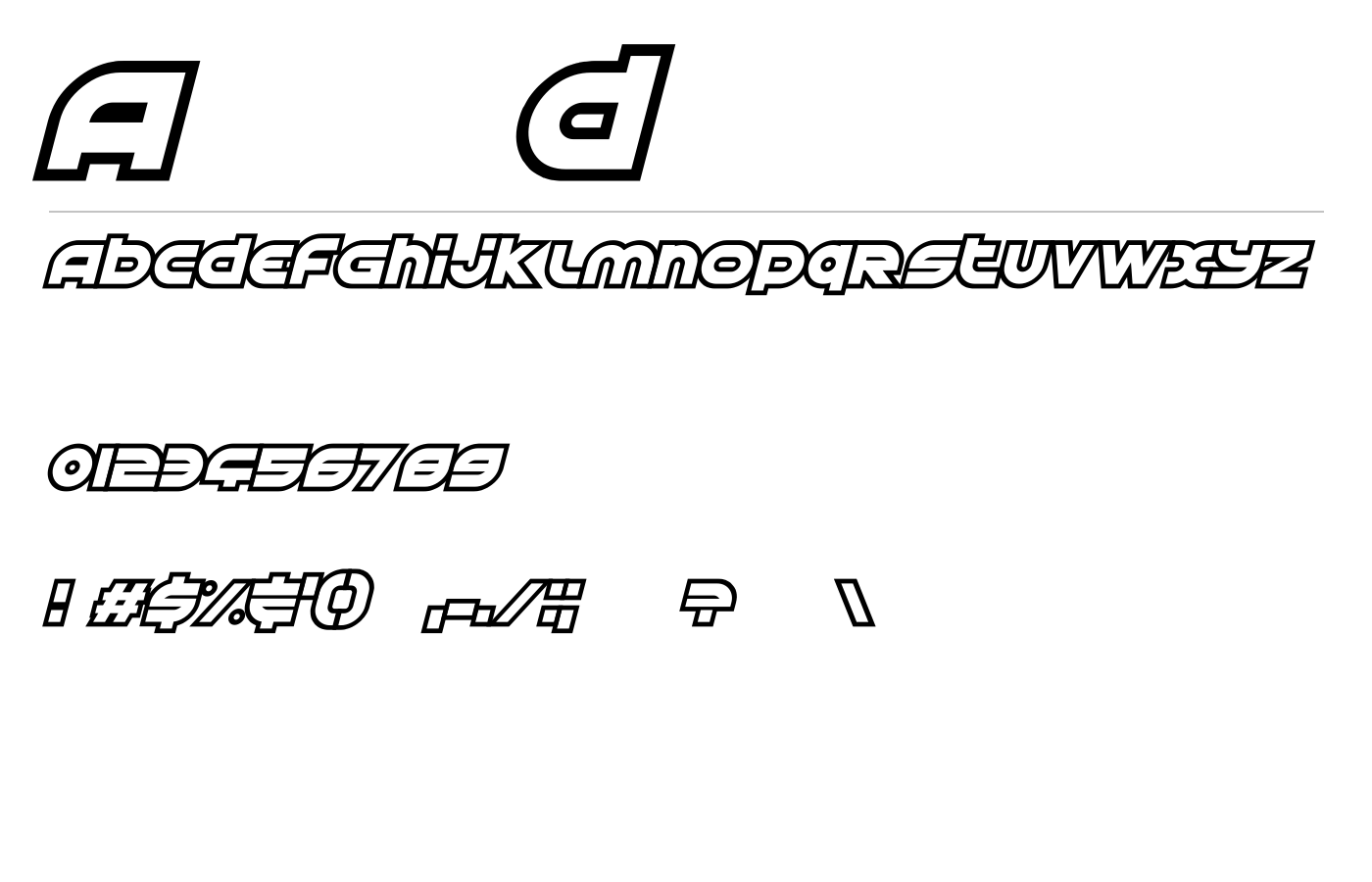
Astral Delight is a bold, futuristic sans serif font with a strong italic slant and outlined stroke that gives it a dynamic, energetic feel. Its geometric shapes combined with tight spacing and unique character details make it ideal for eye-catching headlines, sports branding, and technology-themed designs. This font conveys modernity and motion, perfect for projects that want to stand out with a sleek, forward-looking style.
Astral Delight Font
About Astral Delight Font